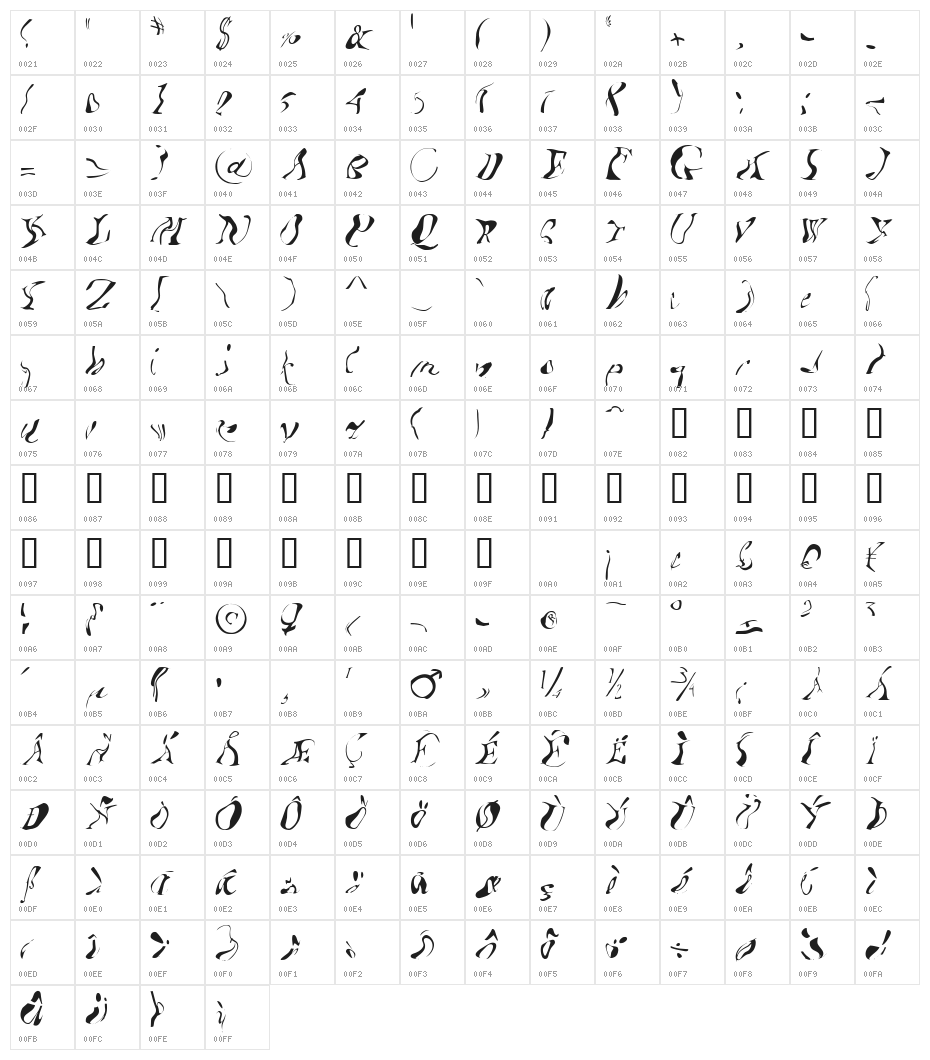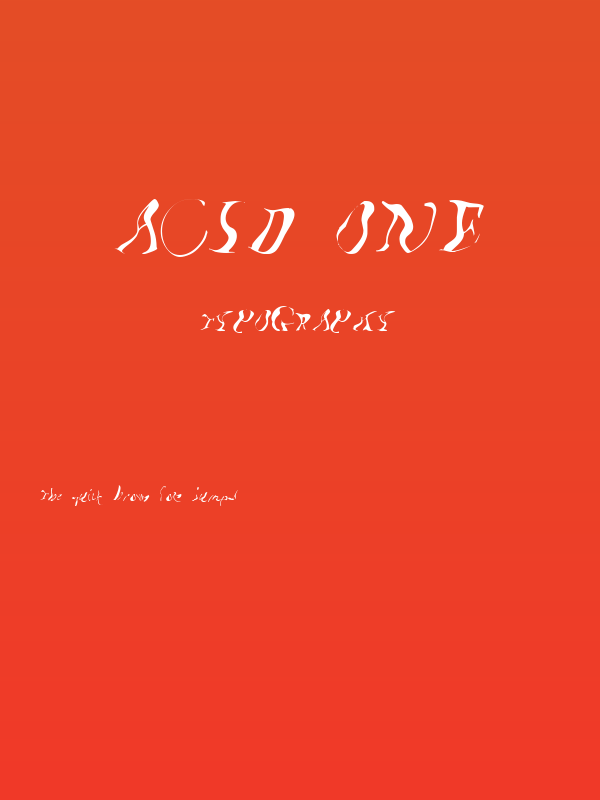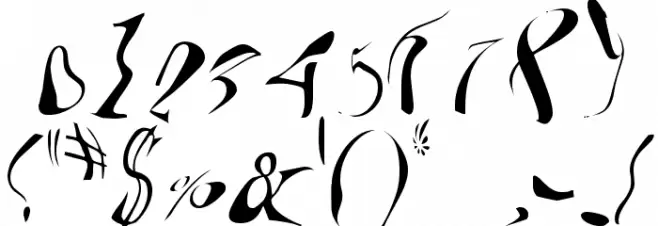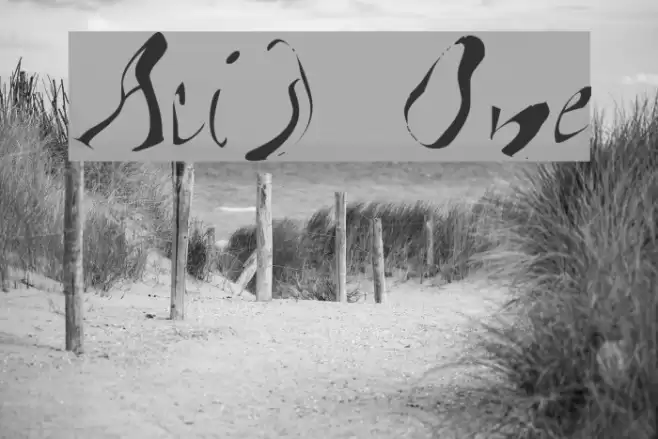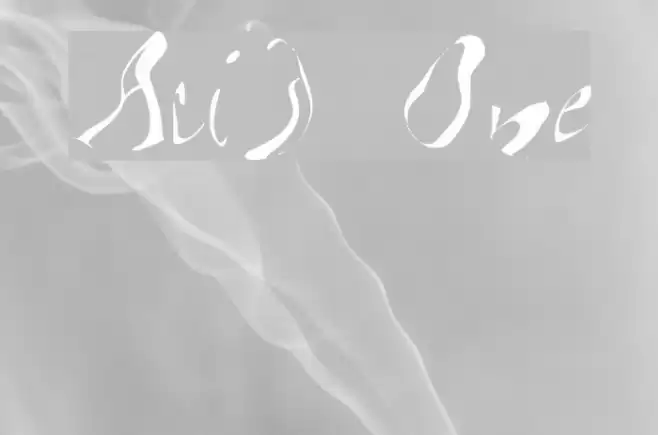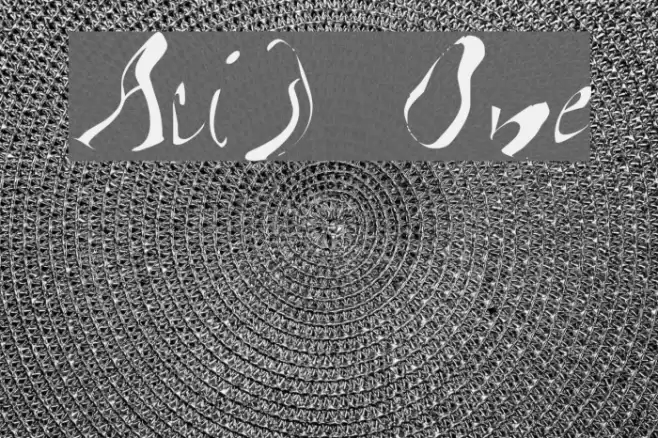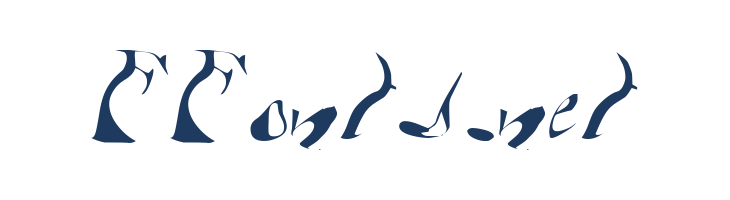
Acid One Font
Acid One Description
This font features a highly stylized and artistic design, characterized by its fluid, sweeping curves and dramatic strokes. The letters exhibit a dynamic and energetic flow, with varying thickness that creates a sense of movement and rhythm. The uppercase and lowercase letters maintain a consistent style, while the numerals and special characters integrate seamlessly with the overall aesthetic. The font's unique appearance makes it stand out, offering a creative and unconventional look that is both modern and expressive.